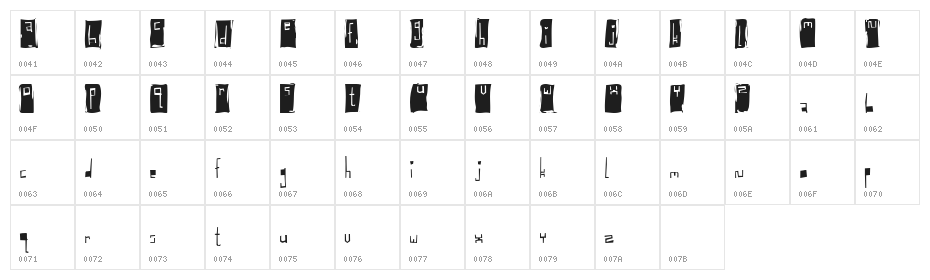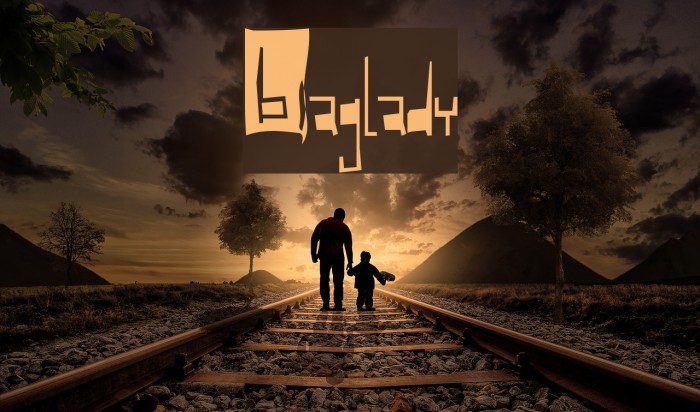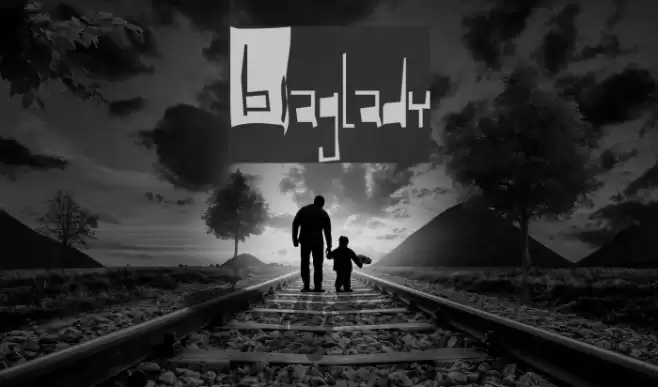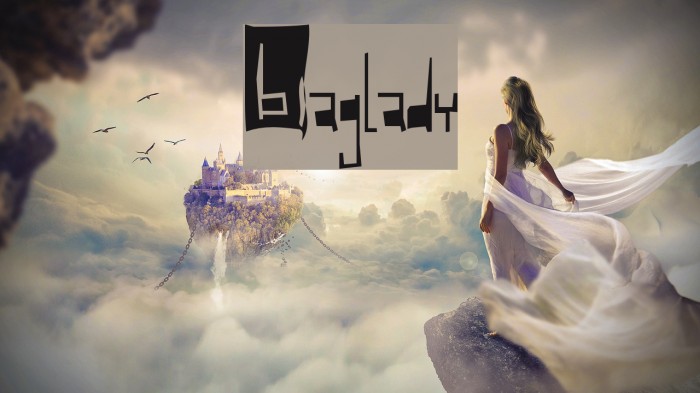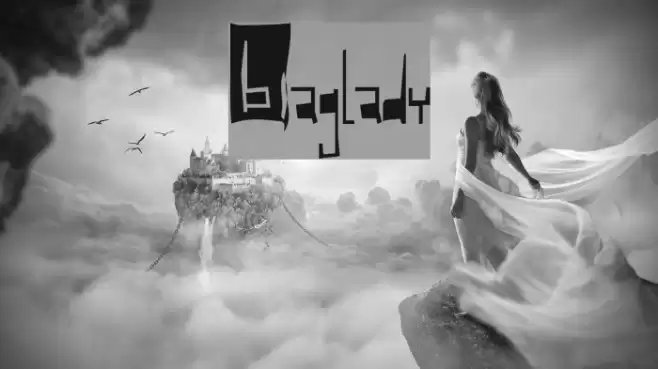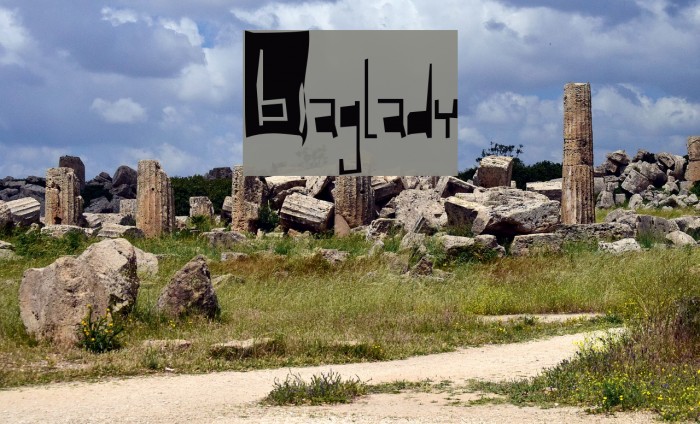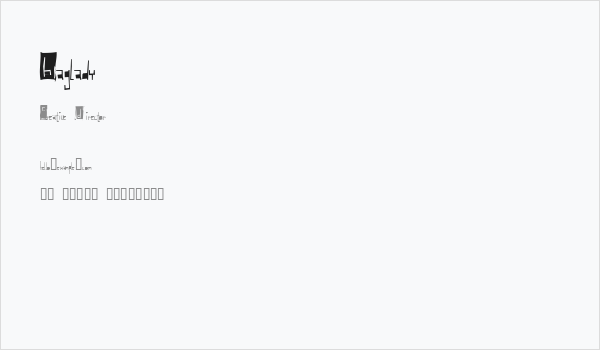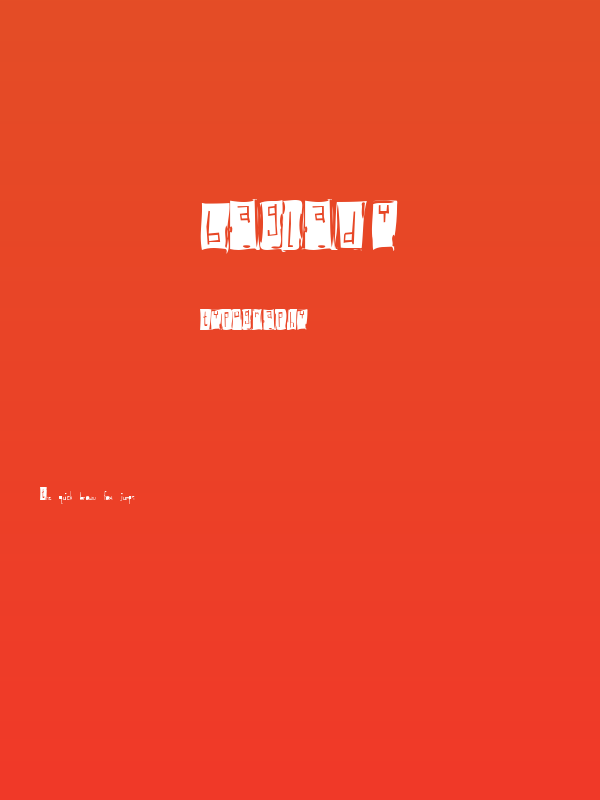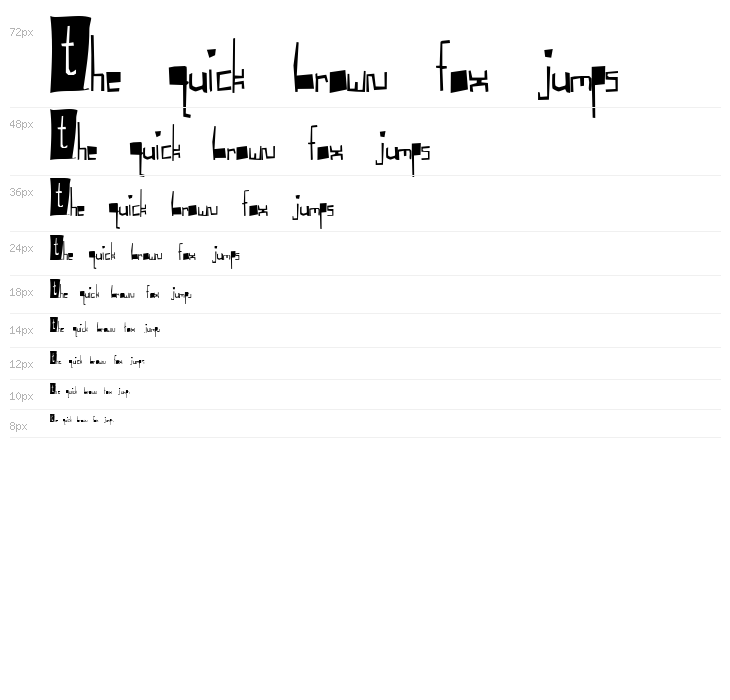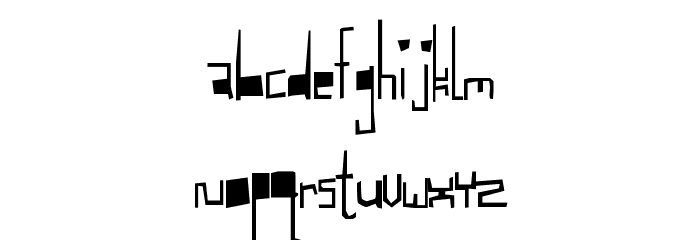
Baglady Font
Baglady Description
This font features a highly decorative and artistic style, characterized by its bold, block-like uppercase letters and thin, elongated lowercase letters. The uppercase letters are enclosed in irregular, jagged shapes that give a sense of movement and energy. The lowercase letters are more minimalist, with a quirky, hand-drawn appearance that contrasts with the boldness of the uppercase. The numbers and special characters follow the same bold, blocky style as the uppercase letters, maintaining a consistent visual theme. This font's unique design makes it stand out, offering a playful yet edgy aesthetic.